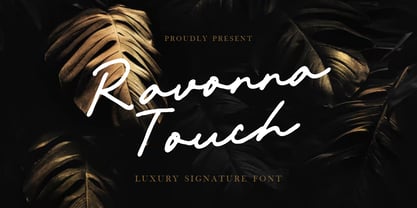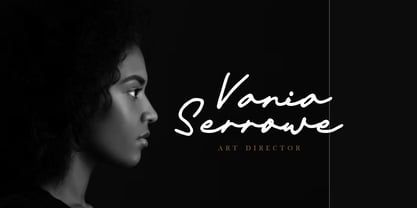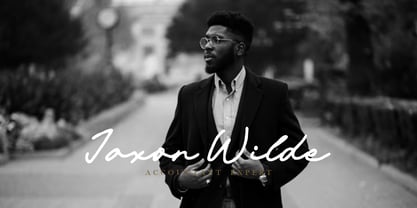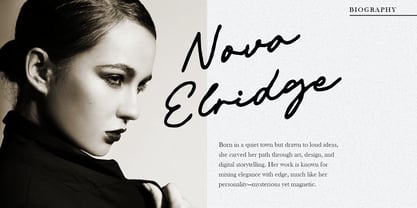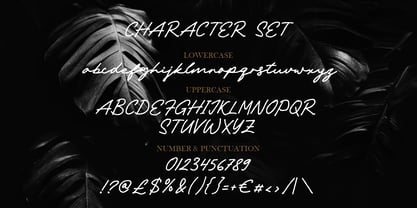
Ravonna Touch
by Shanaf
The Ravonna Touch Font Family was designed by Yesie Erma Yunita and published by Shanaf. Ravonna Touch contains 1 styles. More about this family
Ravonna Touch is a modern luxury signature font that seamlessly blends elegance with authenticity. Inspired by the flow of natural handwriting, this font showcases smooth curves, consistent pressure, and a personal rhythm that evokes the art of a refined signature. Its semi-connected letterforms balance charm and clarity, making it ideal for branding that demands grace and high-end appeal. The font appears soft and fluid, yet confidently stylish—suitable for logotypes, fashion labels, personal brands, and more. From the upstrokes to the rounded loops, every detail speaks sophistication and exclusivity.
Perfectly suited for premium packaging, editorial titles, business cards, and formal event invitations, Ravonna Touch elevates design with a human touch. It’s an excellent choice for designers who need a calligraphic feel without sacrificing readability. The font includes uppercase and lowercase letters, numerals, punctuation, and multilingual support. Whether used on dark luxurious backgrounds or light minimal layouts, it adapts effortlessly and remains visually captivating.
Designers: Yesie Erma Yunita
Foundry: Shanaf